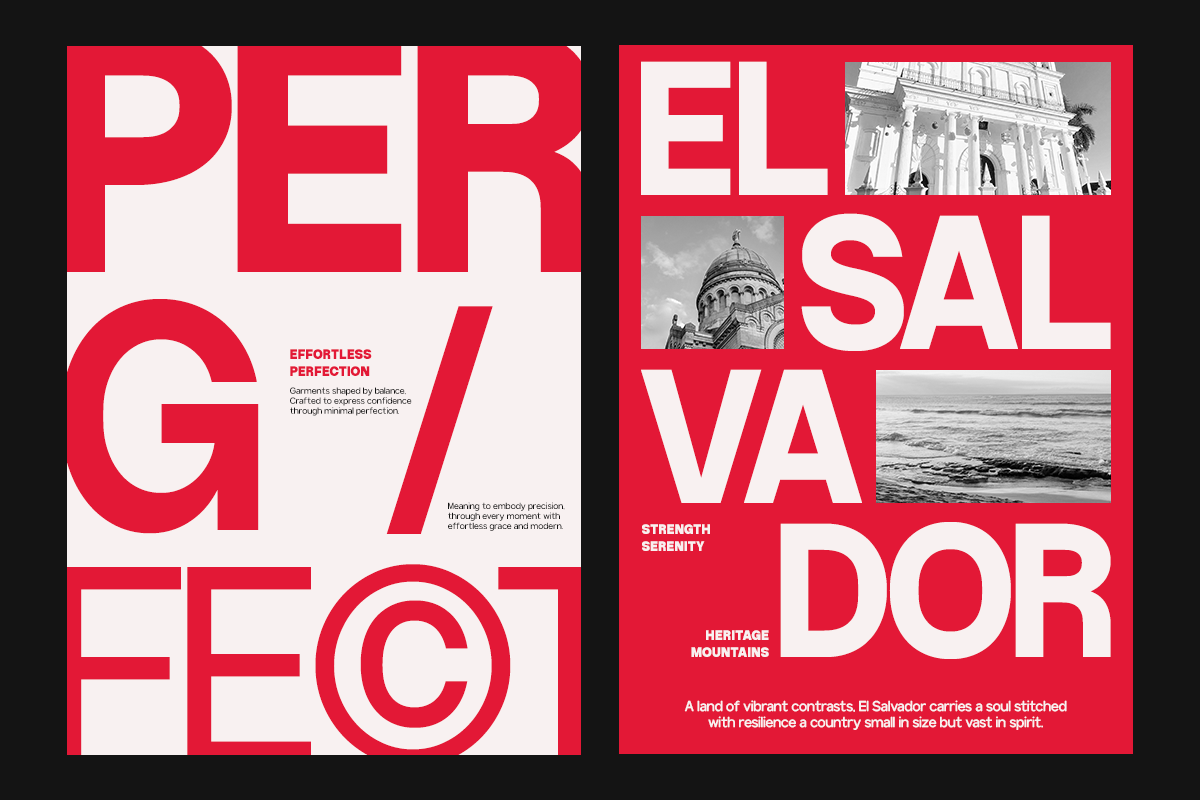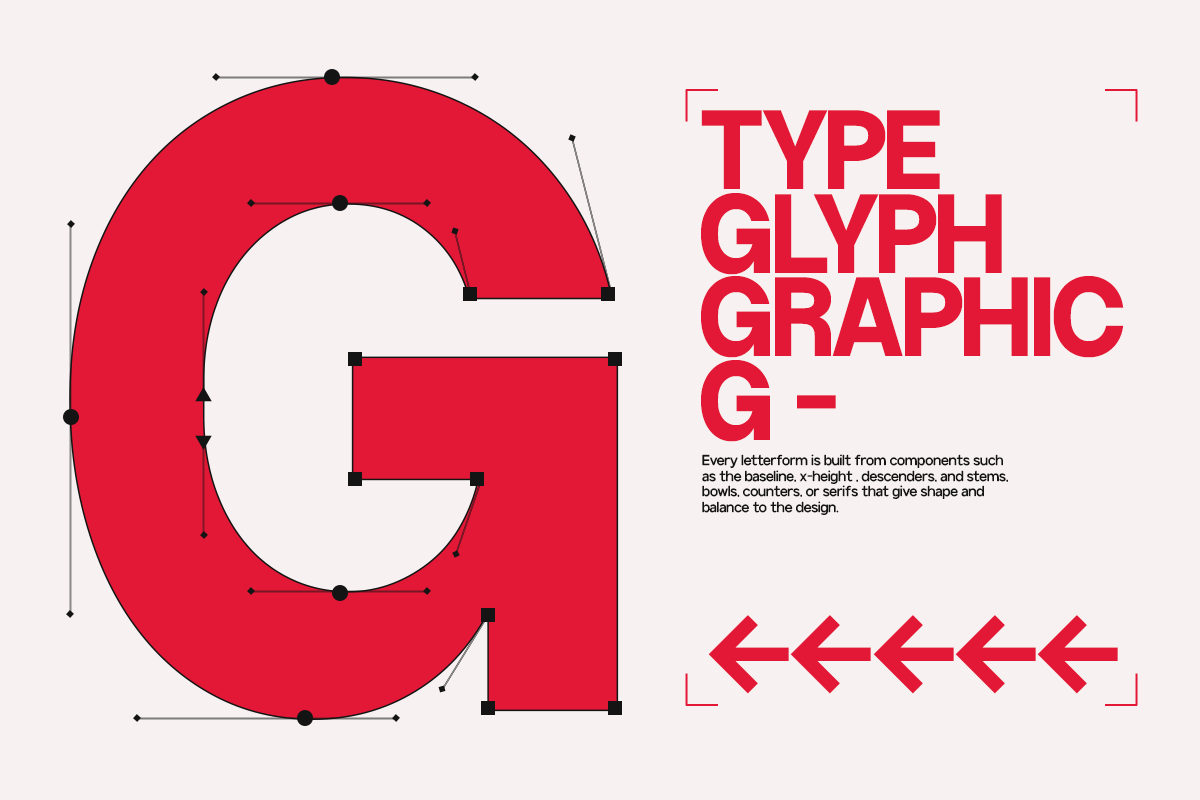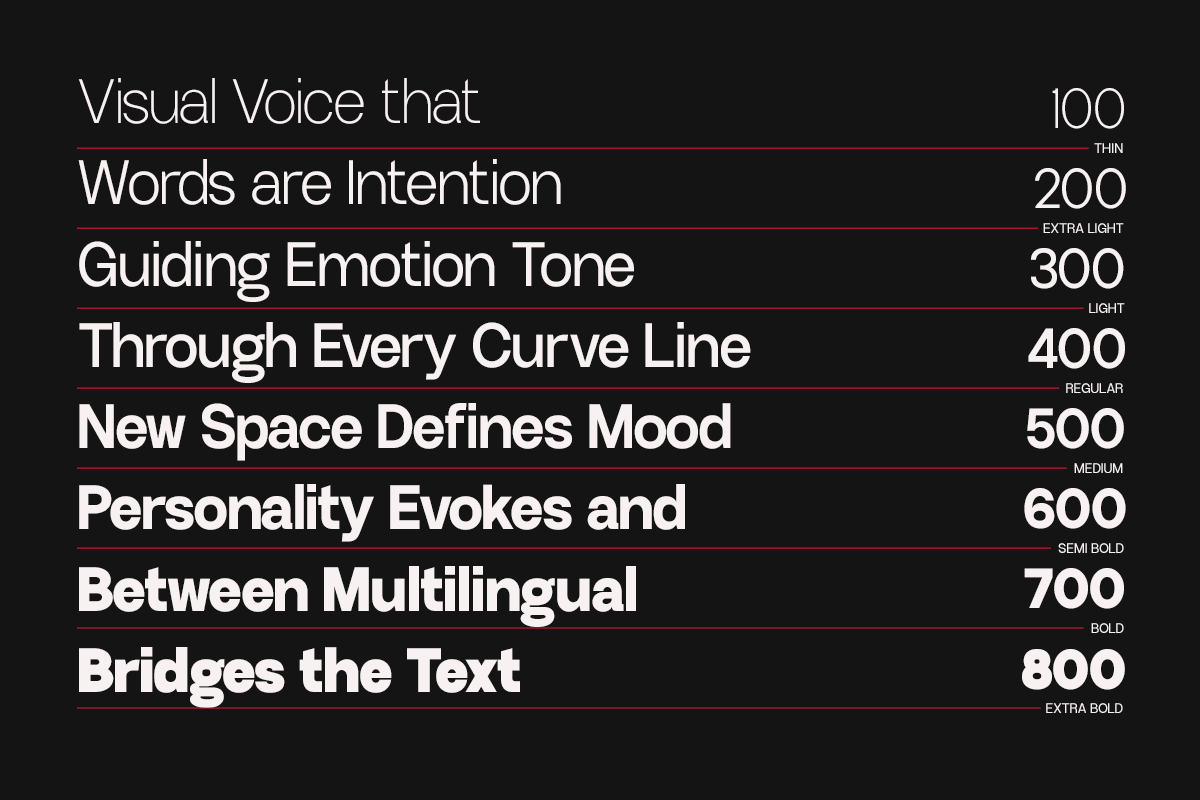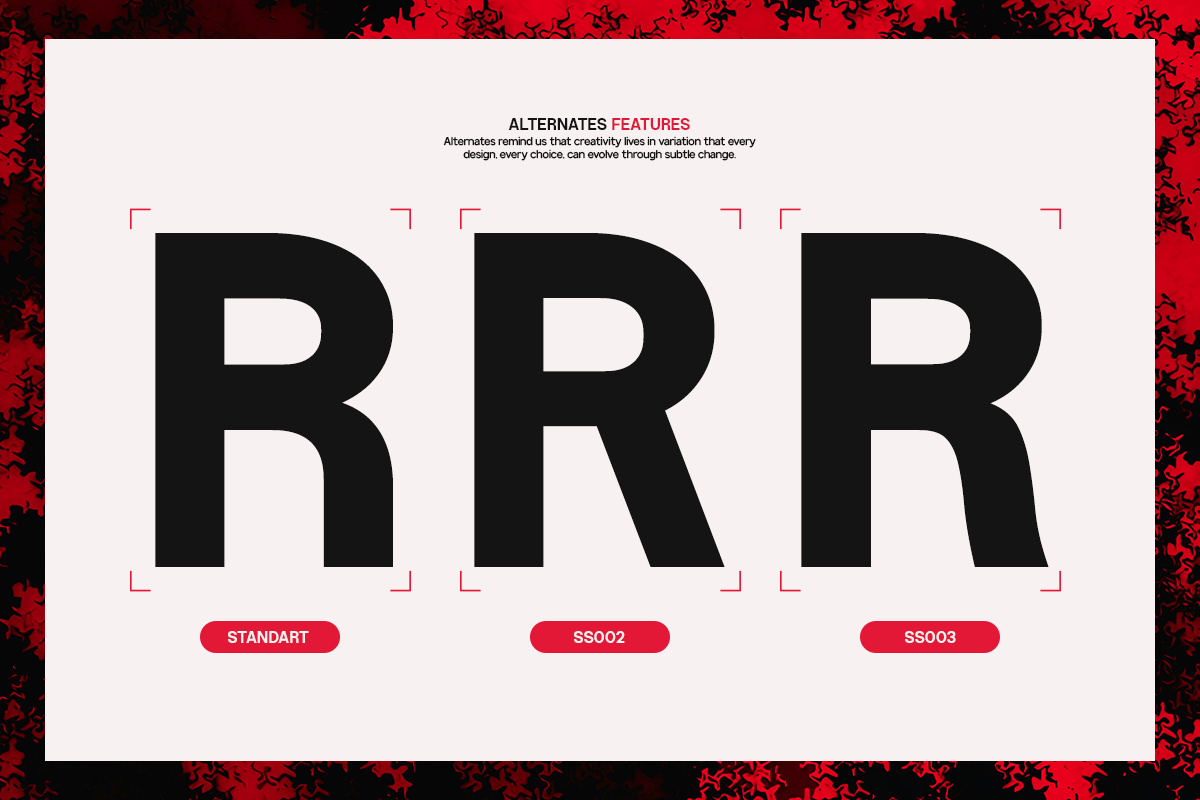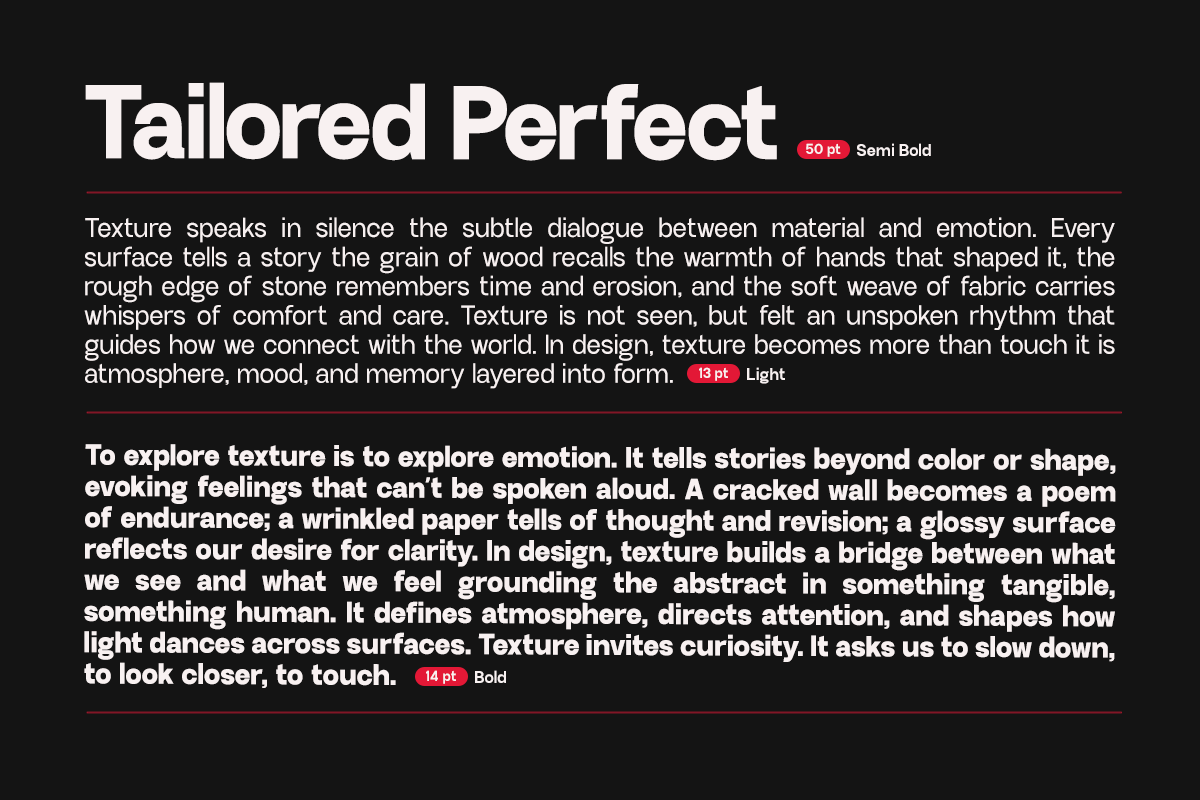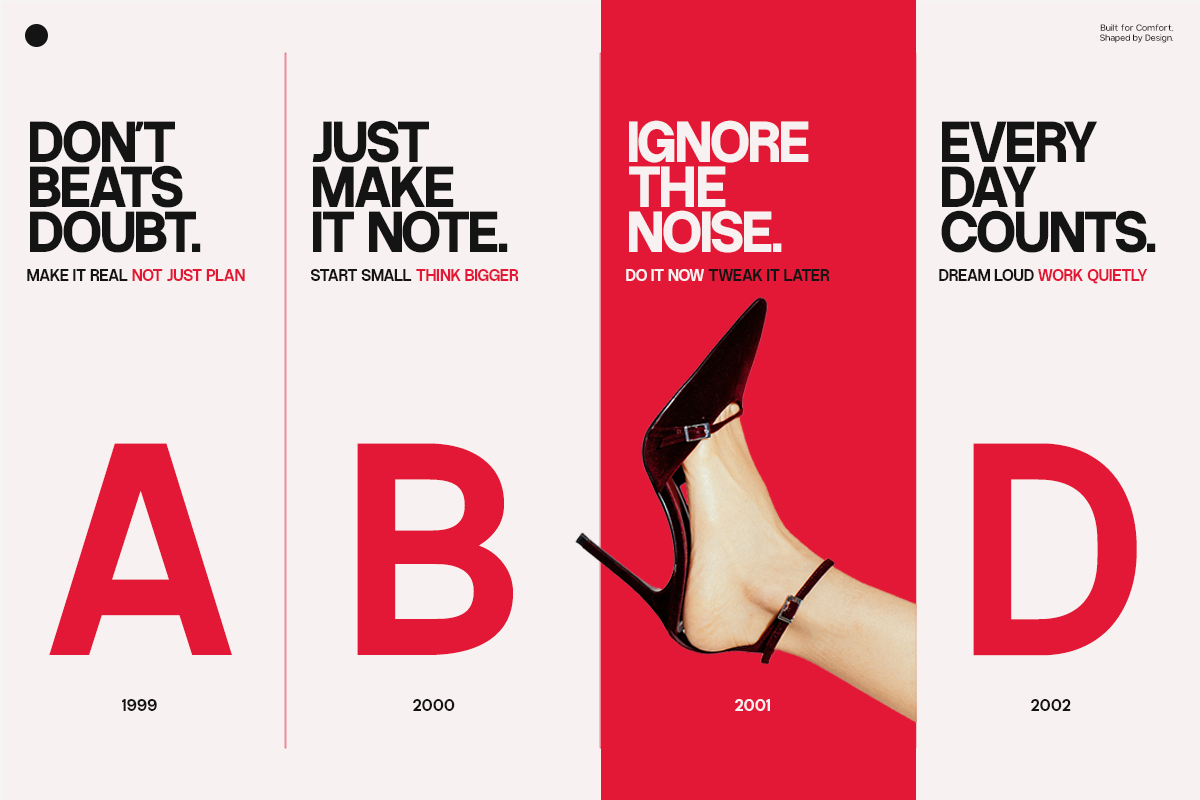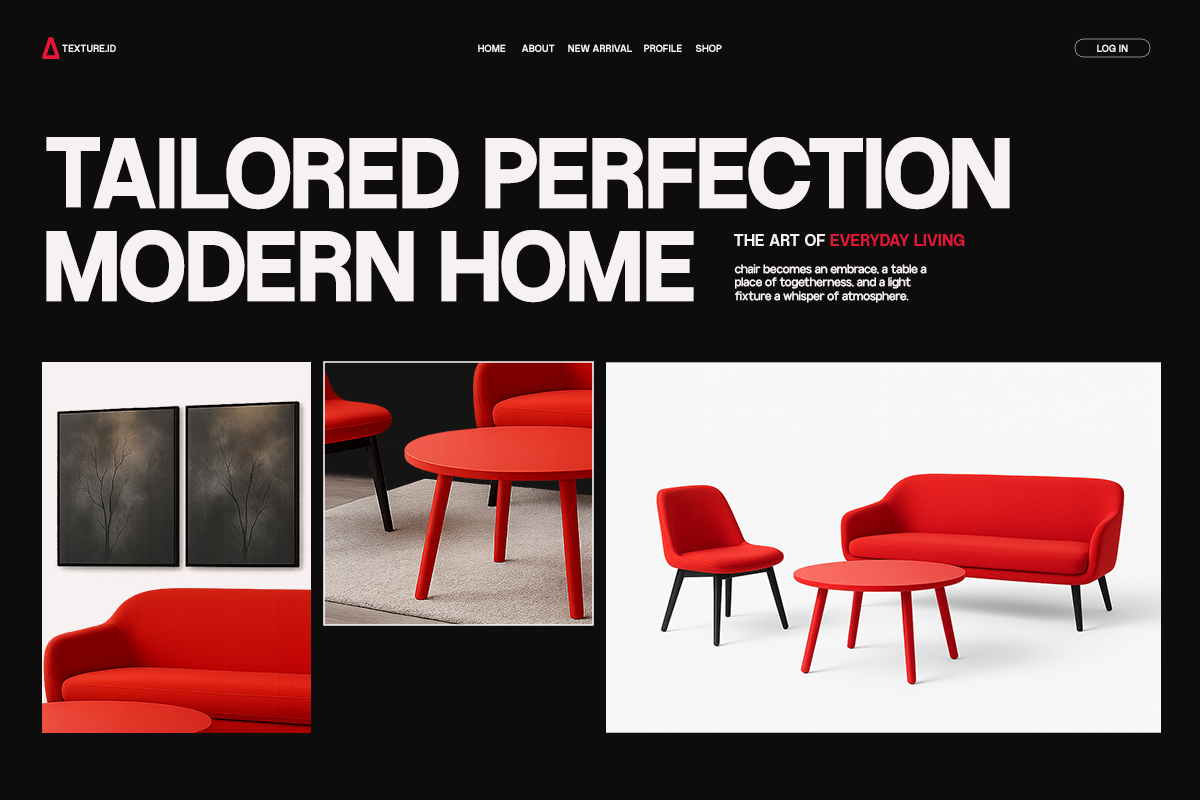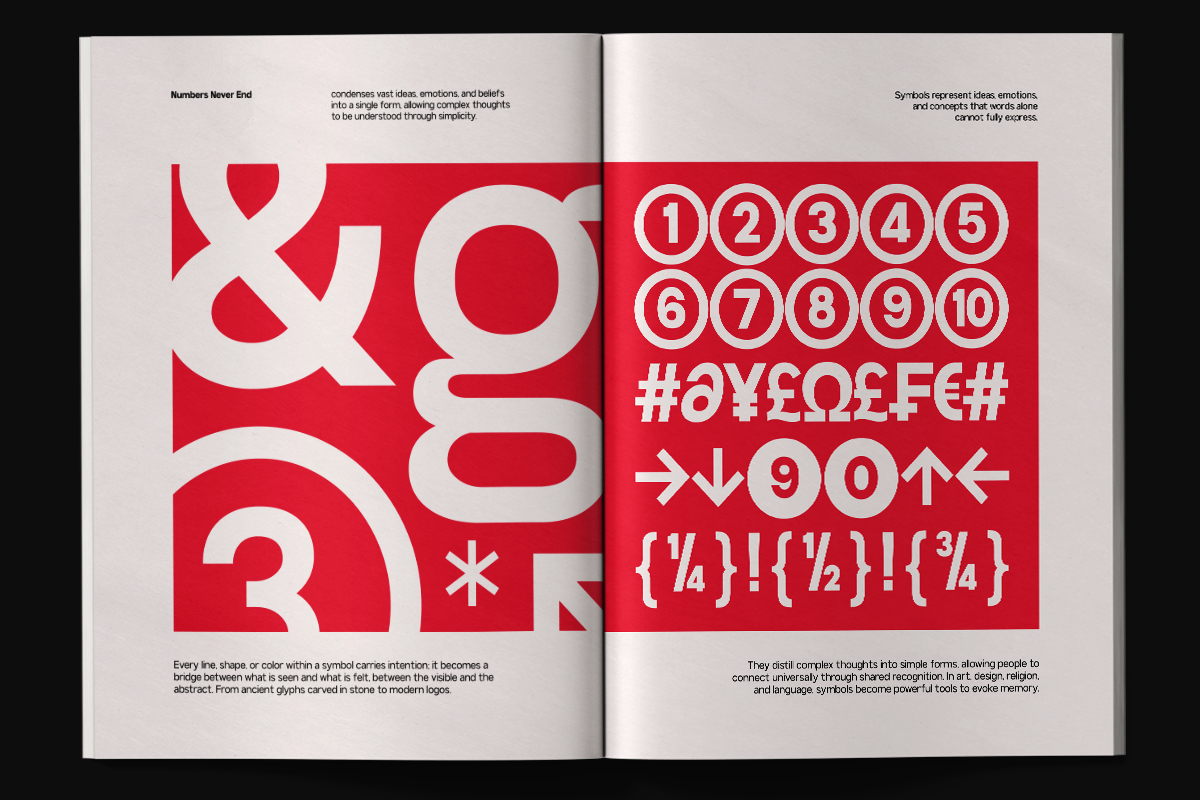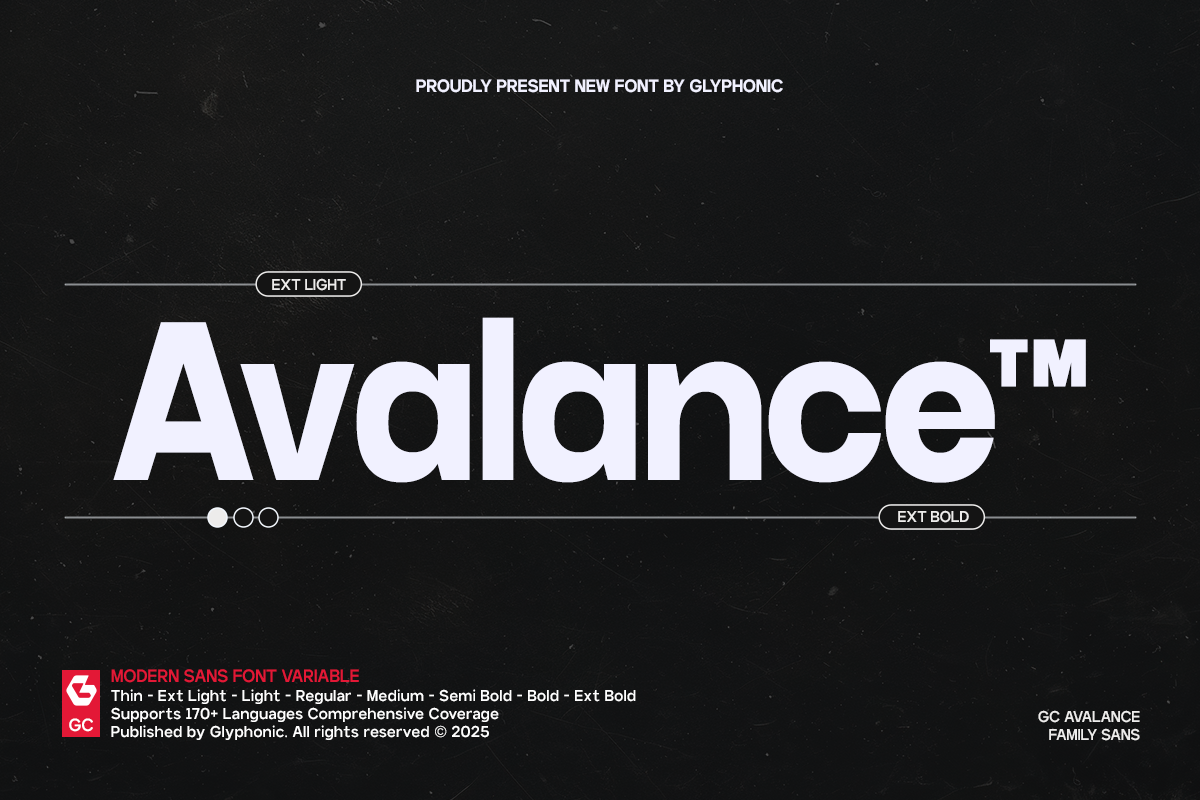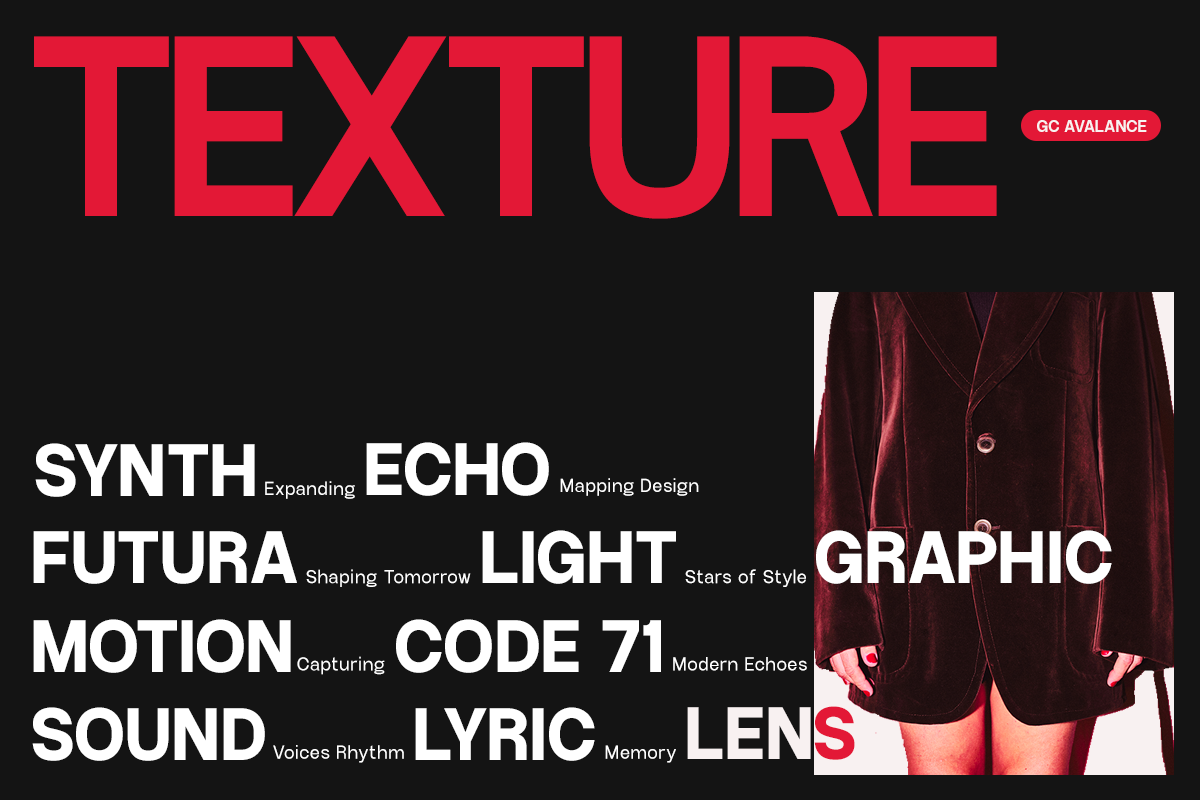
GC Avalance – Neo Modern Typeface
GC Avalance – Neo Modern Typeface is a contemporary sans serif font family crafted for precision, balance, and versatility. With its clean geometric structure and smooth proportions, GC Avalance delivers a bold yet refined voice that adapts seamlessly across digital and print design. Designed for clarity in motion and stillness, it brings modern sophistication to any creative project.
Perfect for branding, editorial layouts, interfaces, and bold visual identities, GC Avalance embodies a confident modern aesthetic without sacrificing readability. Each weight—from Thin to Extra Bold—has been carefully tuned for harmony and impact, making it ideal for both headlines and body text.
- Variable Font (Thin–Extra Bold)
- Neo-Modern Geometric Construction
- Multilingual Support (170+ Languages)
Bring clarity, structure, and a forward-thinking edge to your typography with GC Avalance – Neo Modern Typeface.